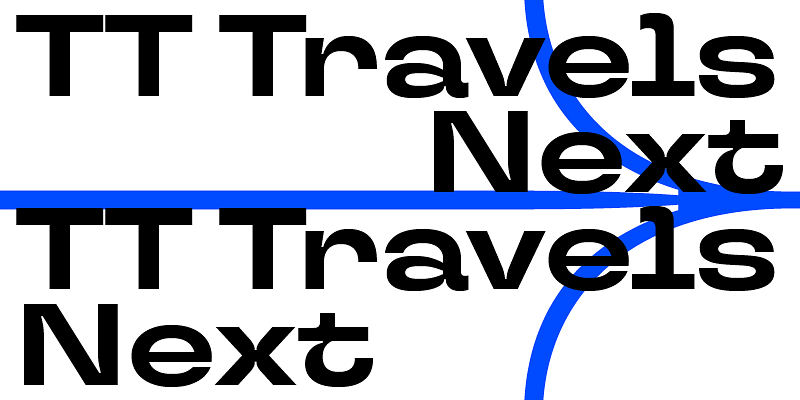
TT Travels Next Font is perfect for travel agency branding, adventure tourism campaigns, airline company materials, hotel booking platforms, travel blog headers, destination marketing posters, vacation rental signage, and exploration-themed design projects that require modern typography with wanderlust character and global adventure sophistication.
This TT Travels Next Font is exciting because it captures the spirit of modern exploration and wanderlust with sleek, forward-moving letterforms that convey motion and discovery, featuring contemporary character construction that evokes jet trails and horizon lines while maintaining exceptional readability for international travel communications and digital applications.
The TT Travels Next Font family includes dynamic weights with travel-inspired styling, complete character sets with adventurous uppercase and lowercase letters, journey numerals, exploration punctuation, and global symbols that provide comprehensive typography solutions for travel and tourism design projects requiring authentic wanderlust aesthetics and international appeal.
Perfect for creating inspiring travel communications and adventure-focused brand identities, TT Travels Next Font Free Download delivers the modern typography that transforms text into powerful expressions of wanderlust and global exploration. This distinctive typeface embodies the essence of contemporary travel culture and adventure seeking, making it essential for projects celebrating world exploration, travel experiences, cultural discovery, and any design requiring adventurous character with authentic travel sophistication and timeless wanderlust appeal that inspires journeys.